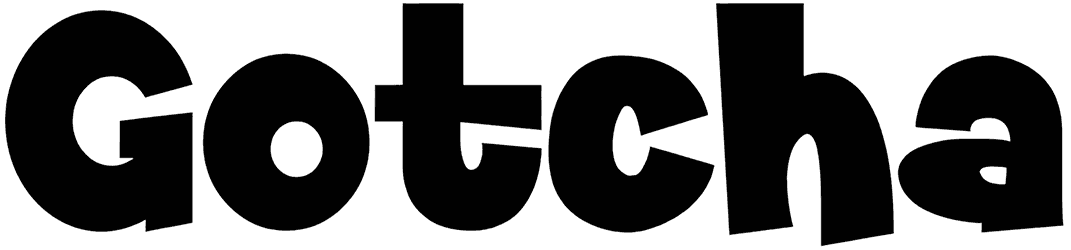
Gotcha Font
The first time you use a cartoon font such as Gotcha in your graphic content, you will notice how it makes it look more captivating.
This masterpiece comes with crooked and bold characters, thus it can share a feeling of playfulness, risk-taking, jauntiness, or tenderness with the audience and grabs their attention. Due to its good reliability, it can be included in a wide range of artwork like animation posters, illustrations, comic books, stickers, or editorial projects.
Designed by: Tokopress